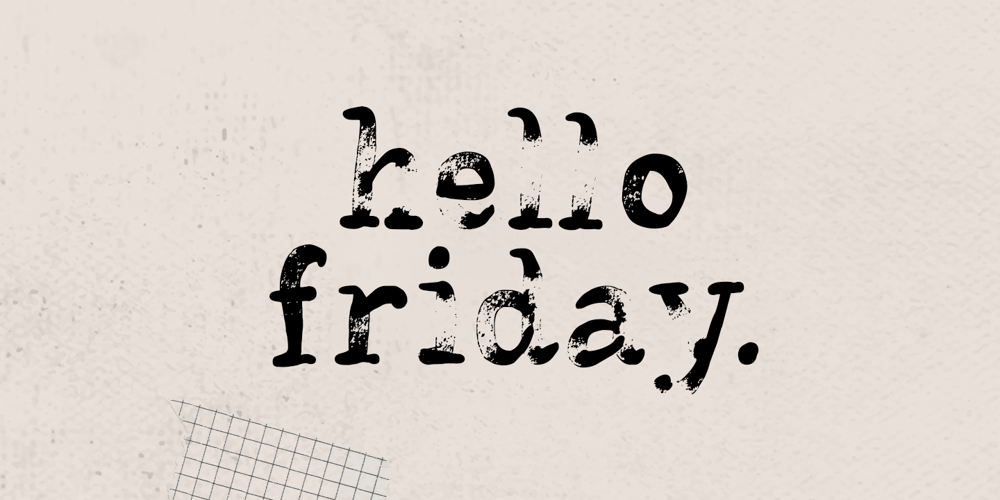
Hello Friday Vector Font Family was designed by Sarid Ezra and published by Sarid Ezra. Hello Friday Vector contains 1 styles and family package options. Introducing, Hello Friday, a handwritten serif!Hello Friday is an organic font with handwritten feels. This organic font also included double ligatures. Number, symbol, and another punctuation also included in this fonts. Support multilingual. Let this font make your project even more organic and natural!